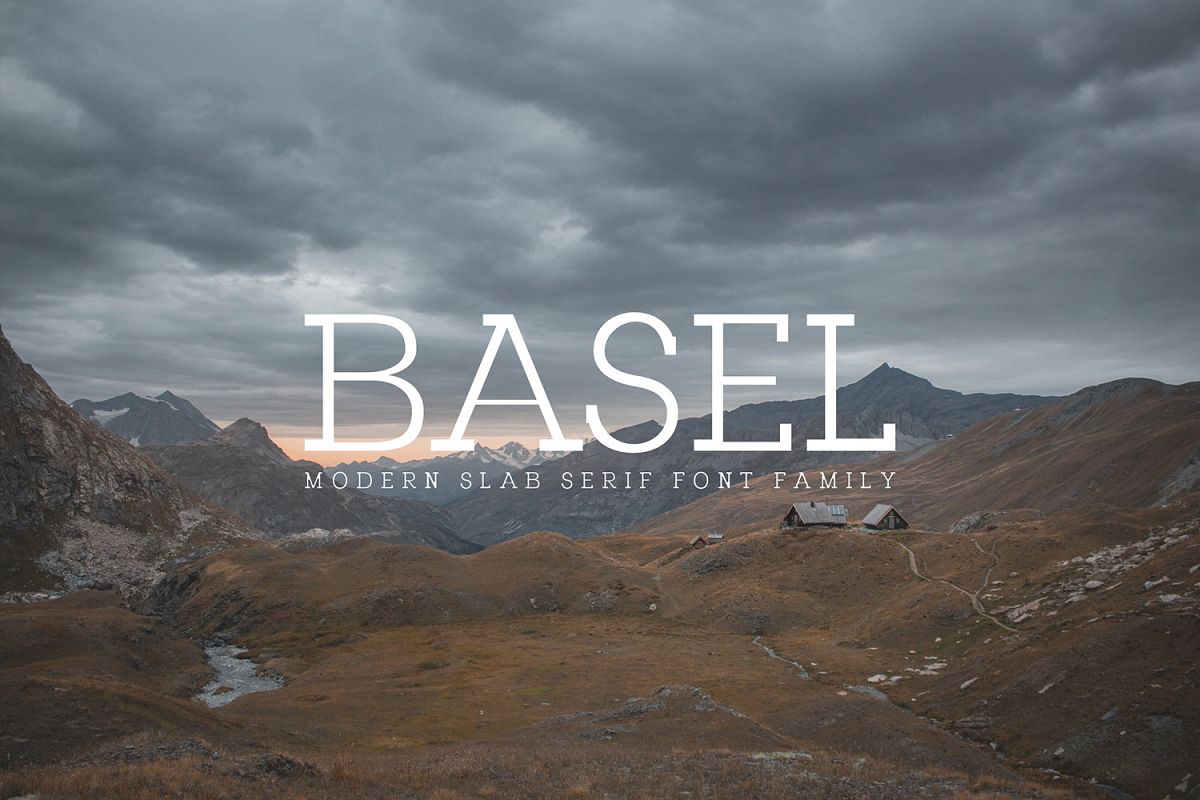
Basel Slab Serif Font Family
Basel is a creative and vibrant slab serif typeface with strong personality and wide choice of weights. It includes uppercase, lowercase, number, punctuation, symbols, with non-english characters. Basel makes it perfect for logo, greeting cards, posters, branding, name card, stationary, design title, blog header, quotes, typography, headlines, packaging, presentations, titles, magazines, headings, web layouts, advertising, invitations, packaging design, books, and nearly any creative design.